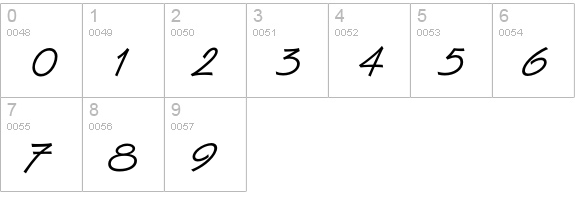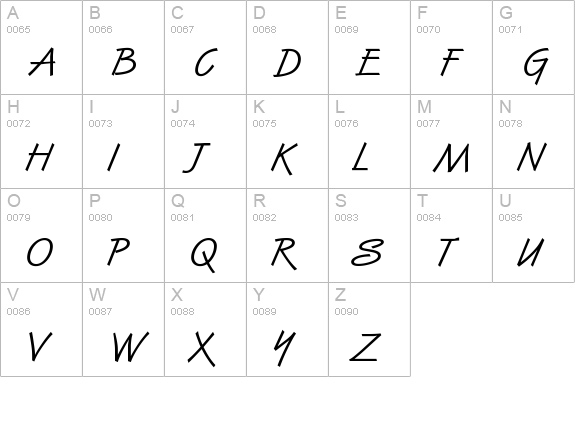
VanDijkEF Font Details
Introducing VanDijkEF, a sleek and modern font that is sure to elevate your design projects to the next level. With its clean lines and sophisticated curves, this font exudes elegance and professionalism. But what sets VanDijkEF apart from other fonts? It's the fact that it is completely free! Yes, you heard that right. This incredible font is freely available to download at FontsMarket.com, ensuring that designers and creatives of all backgrounds can access and utilize its beauty without any cost attached. Whether you're creating a stylish logo, designing a captivating website, or crafting eye-catching marketing materials, VanDijkEF is the perfect choice. Its versatility allows it to seamlessly blend into any design, while still making a bold statement. The attention to detail in VanDijkEF is truly remarkable. Each character has been meticulously crafted to perfection, resulting in a font that is both visually stunning and highly legible. No matter the size or style, VanDijkEF maintains its clarity and readability, ensuring that your message comes across loud and clear. With its wide range of weights and styles, VanDijkEF offers endless possibilities for customization. From light and delicate to bold and powerful, this font allows you to effortlessly convey the tone and personality of your design. Experiment with different combinations to create your own unique visual language. So why wait? Download VanDijkEF for free at FontsMarket.com and unlock a world of design possibilities. Elevate your projects with this stunning font and make a lasting impression on your audience. Don't miss out on this incredible opportunity to access a high-quality font at no cost. Get VanDijkEF today and let your creativity soar.